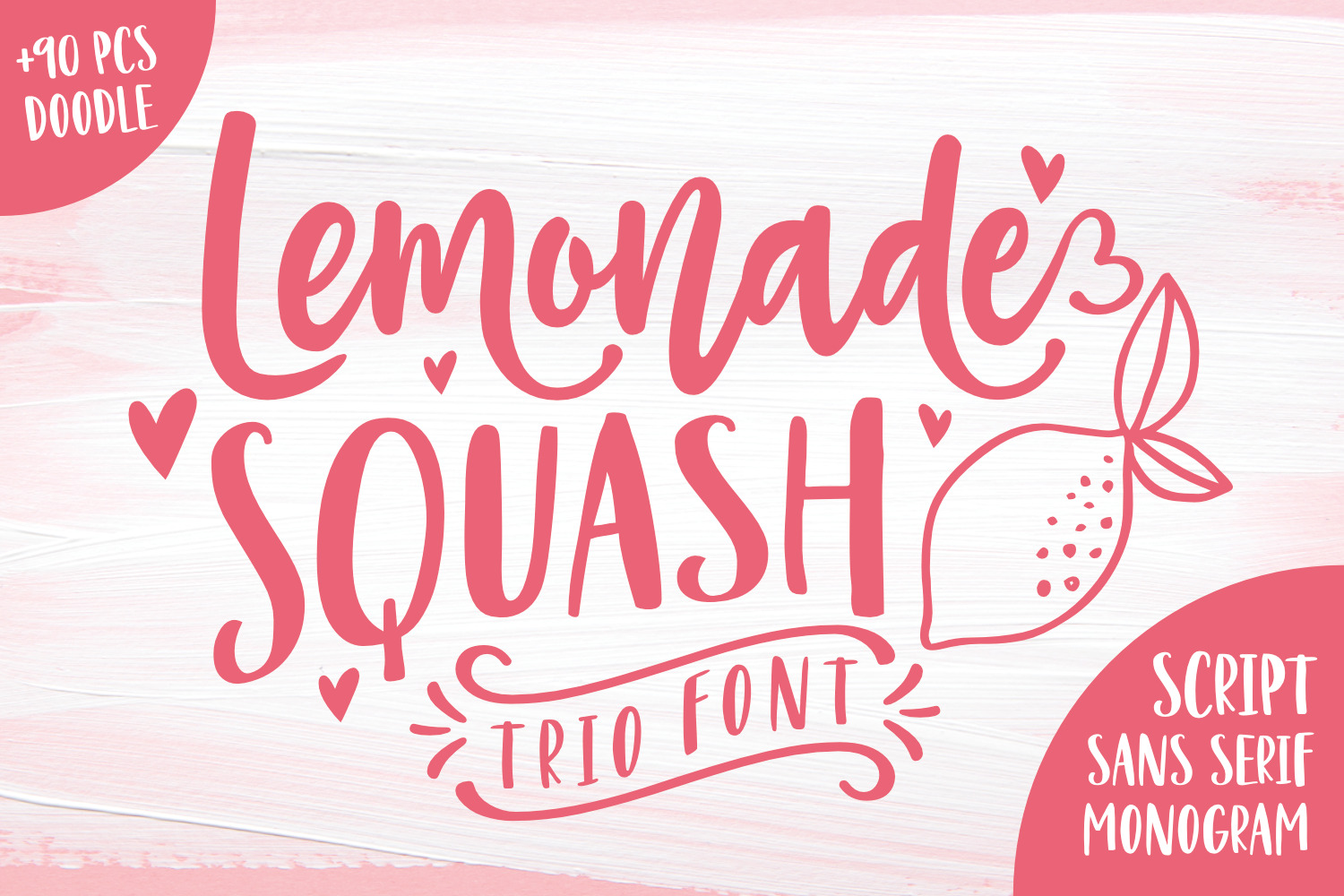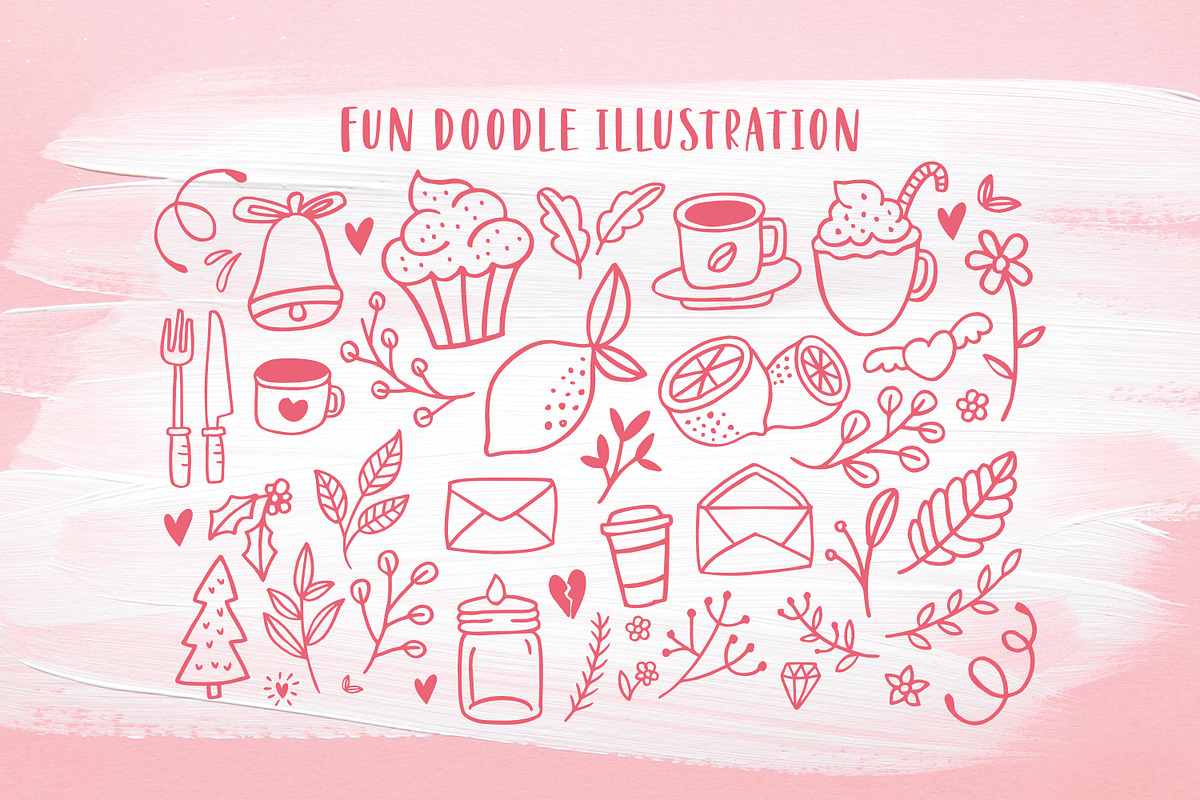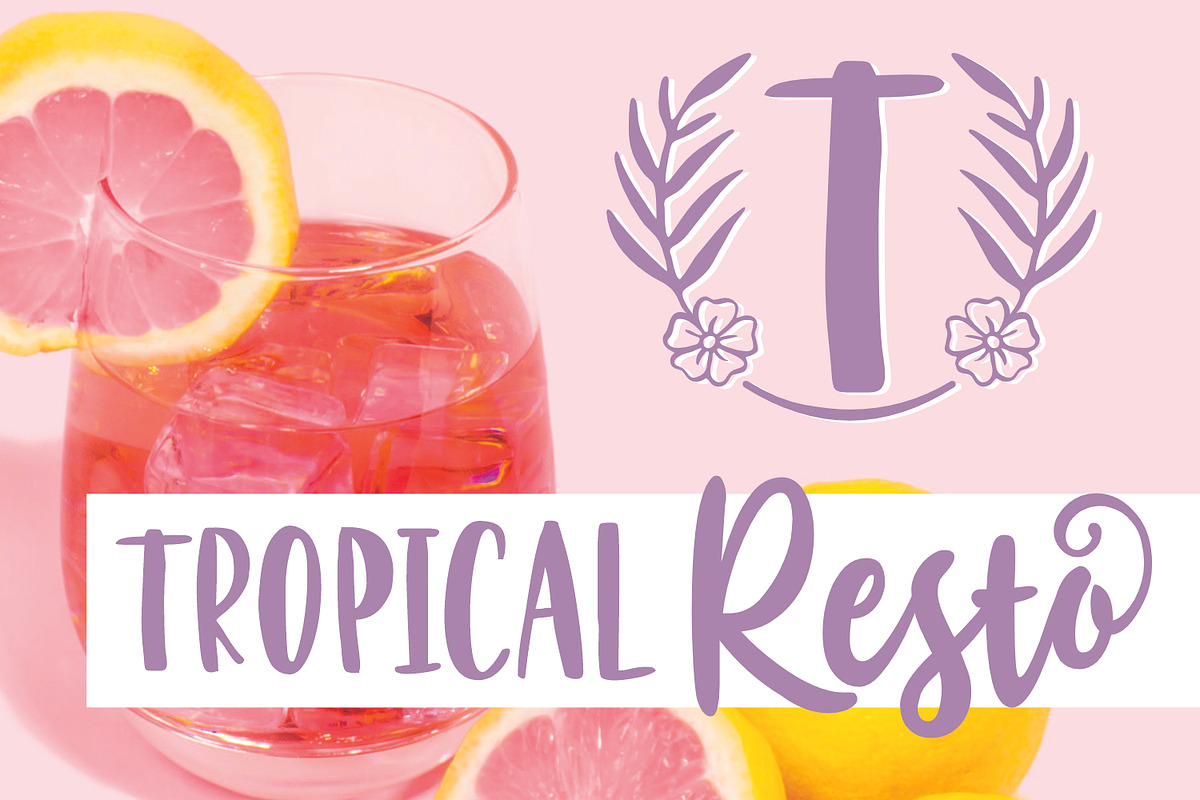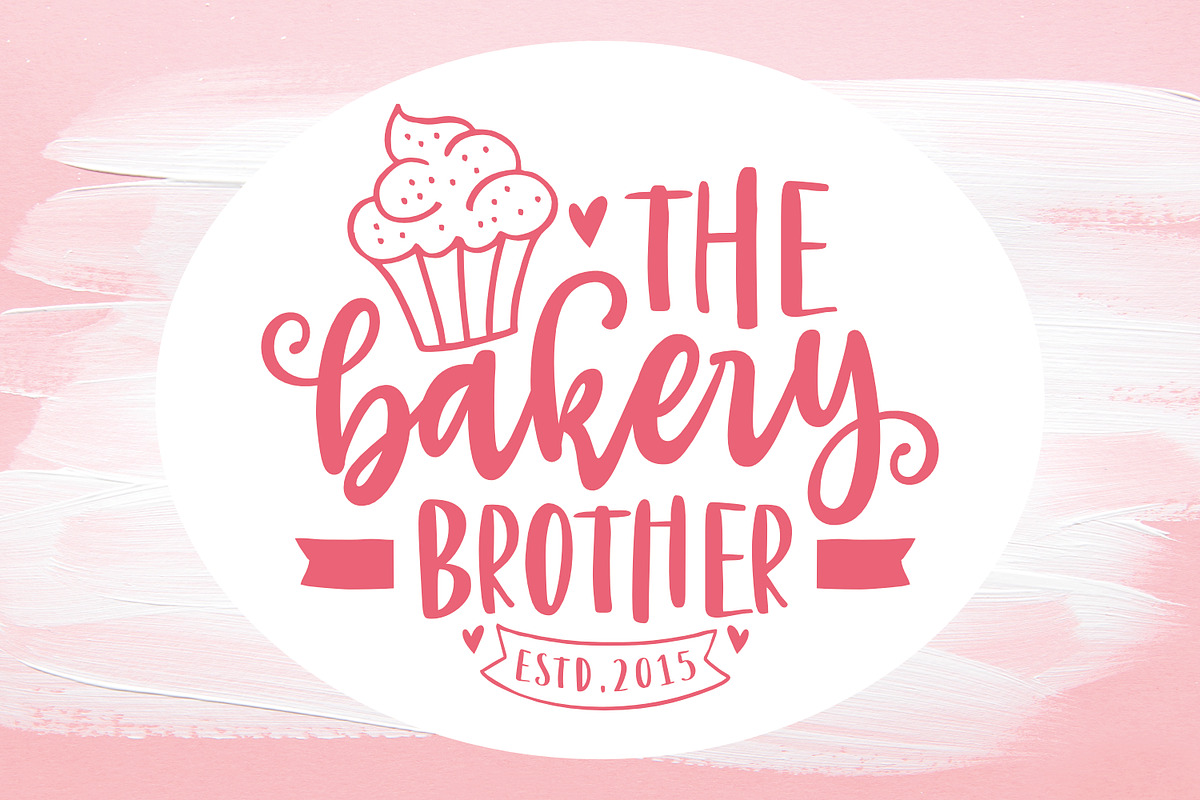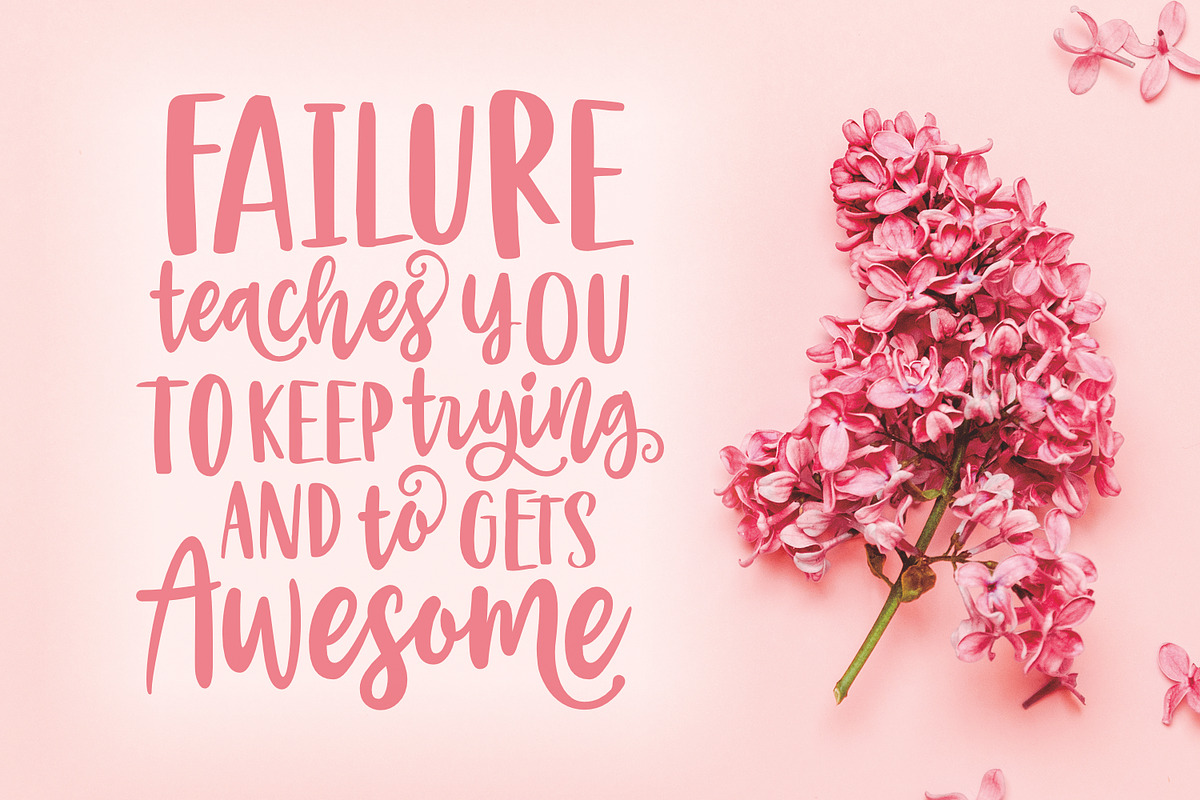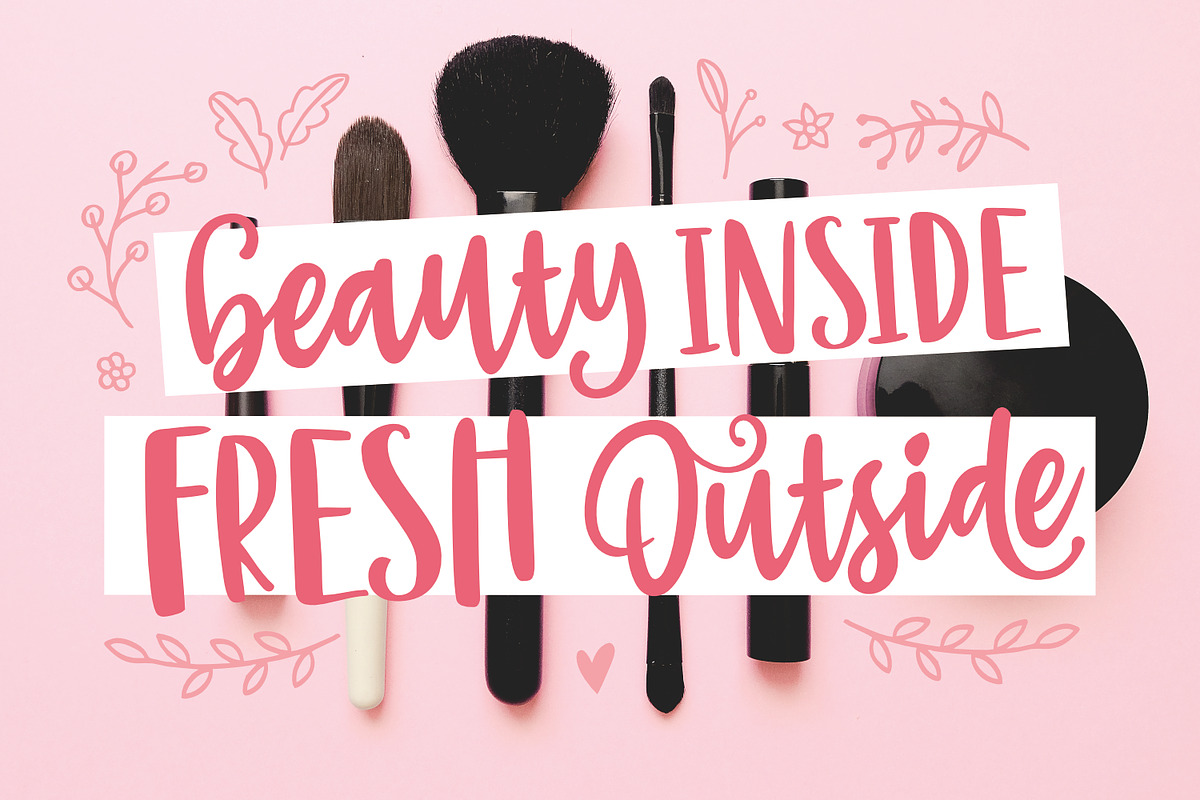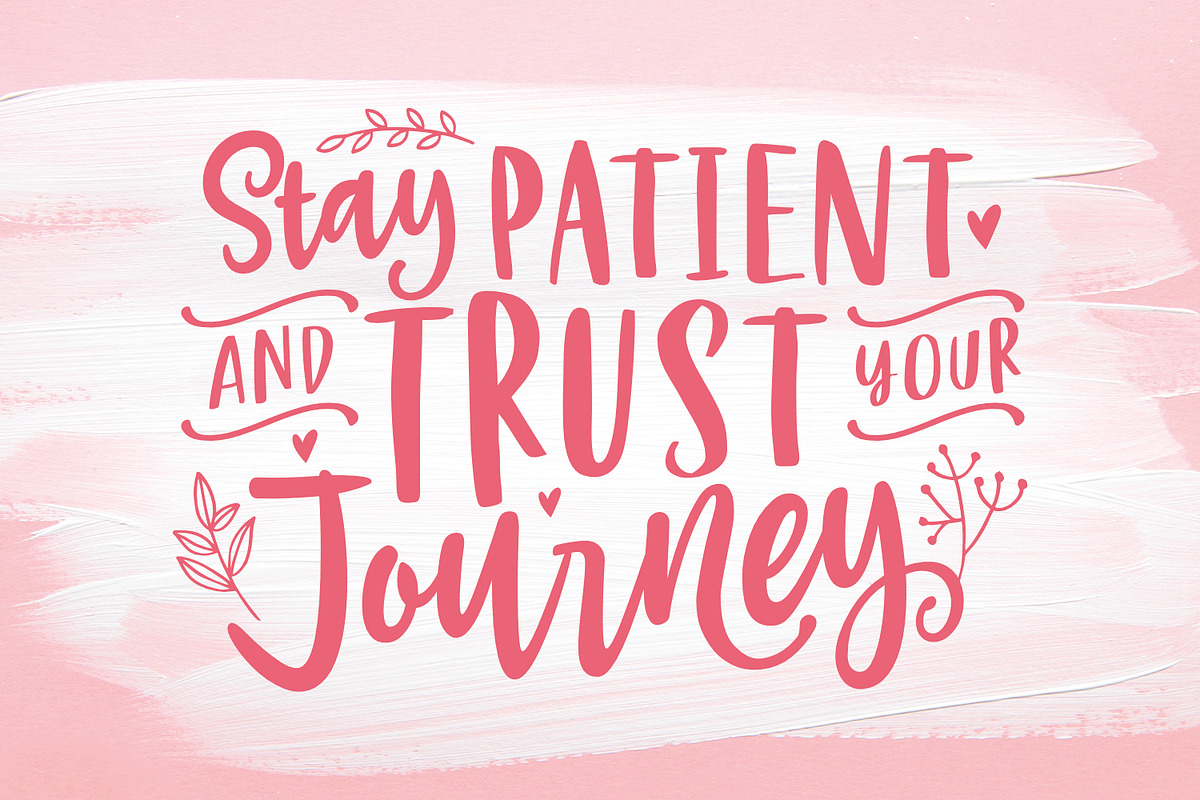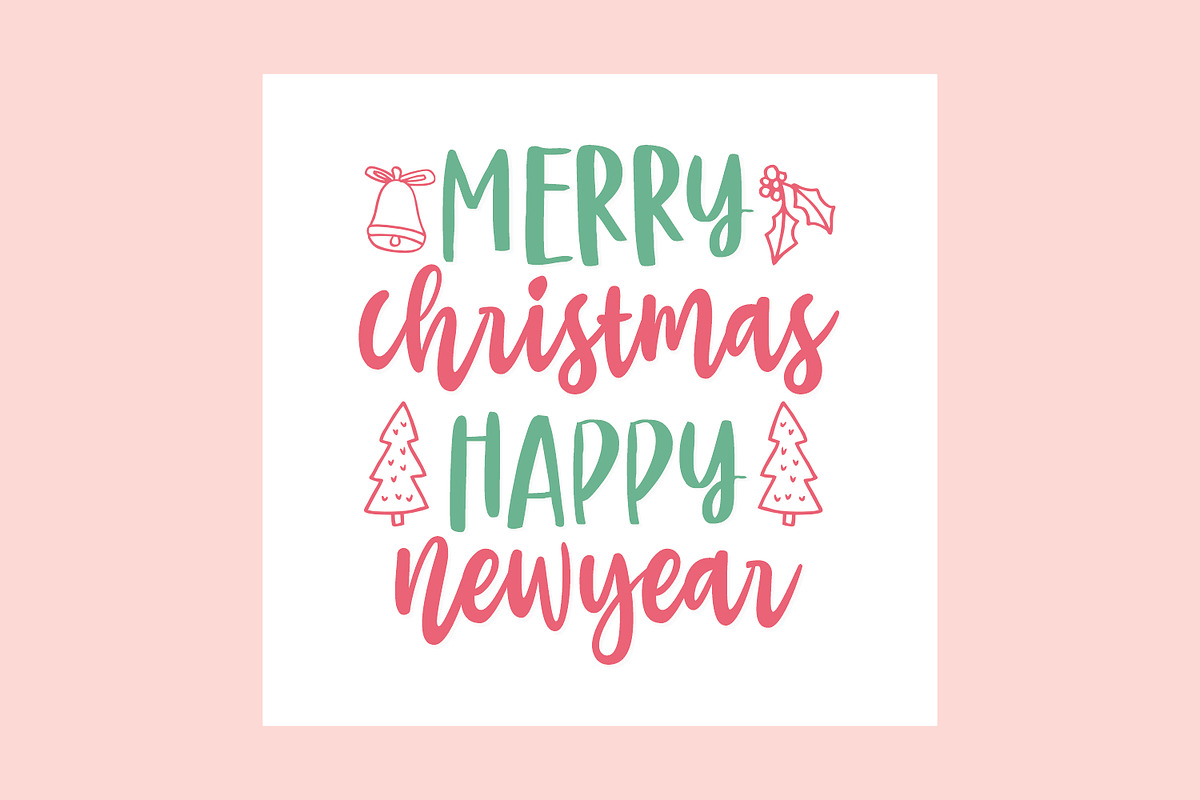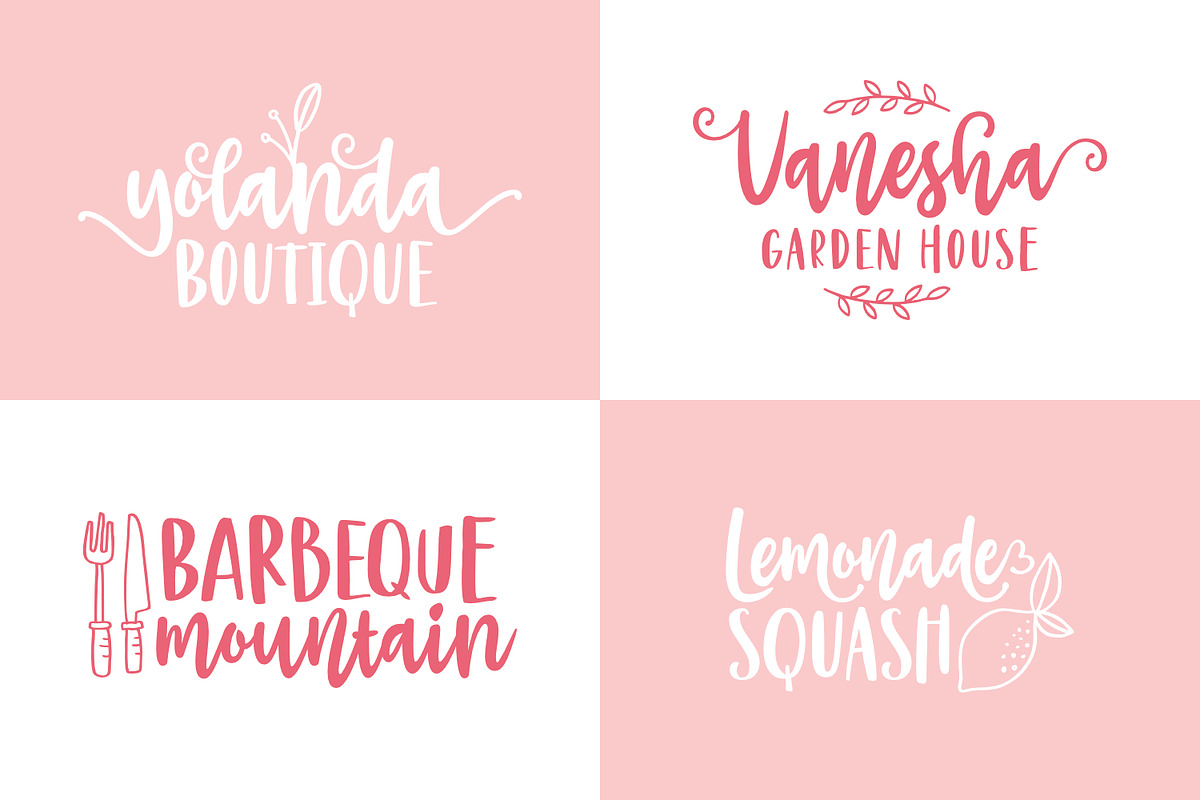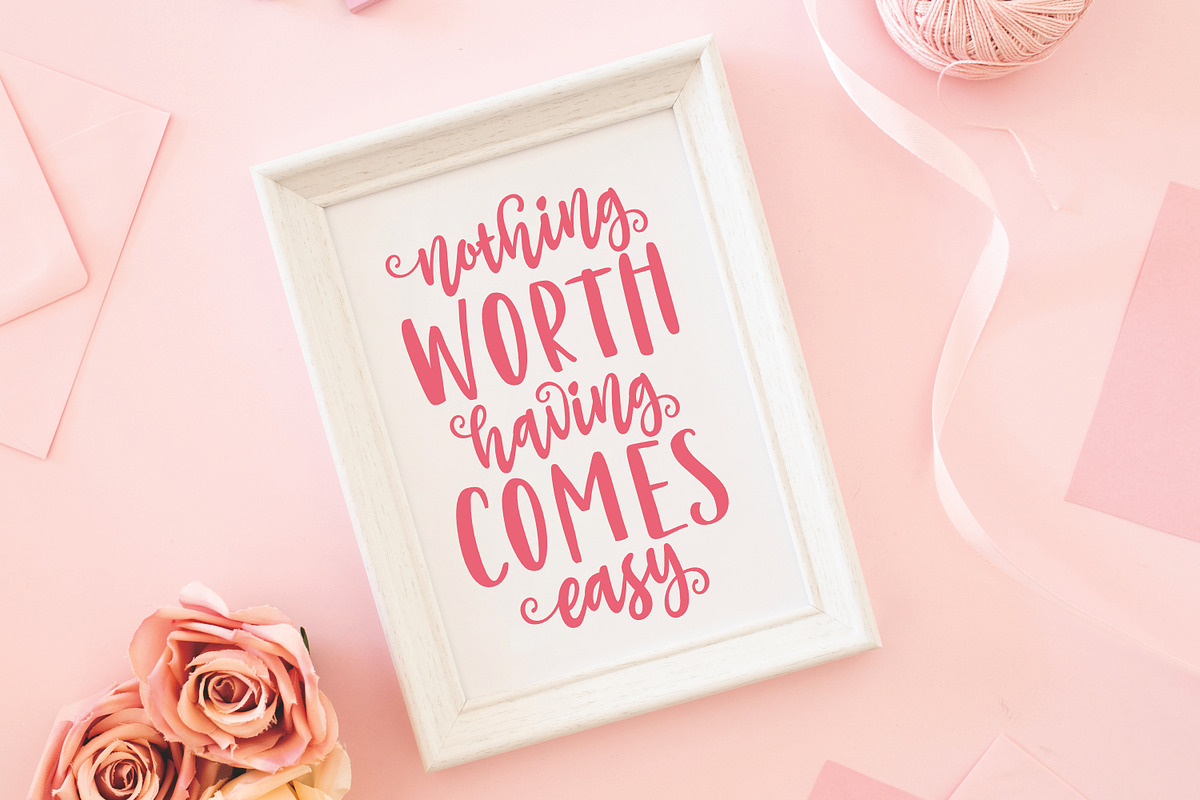
Lemonade Squash Font Trio
Introducing Lemonade Squash Trio Font - a versatile design wonder that blends script, sans and monogram styles. This exceptional typeface can be the secret ingredient to give your projects a unique aesthetic. Be it crafting t-shirt designs, logos, brand identities, tote bag designs, mugs, pillows or enhancing your social media posts, Lemonade Squash has got you covered. This font also fits beautifully into adding charm to love notes, greeting cards, party invites, weddings, and more. Best yet, Lemonade Squash comes packed with free doodle elements, enabling you to sprinkle that extra creativity on every design you embark on.